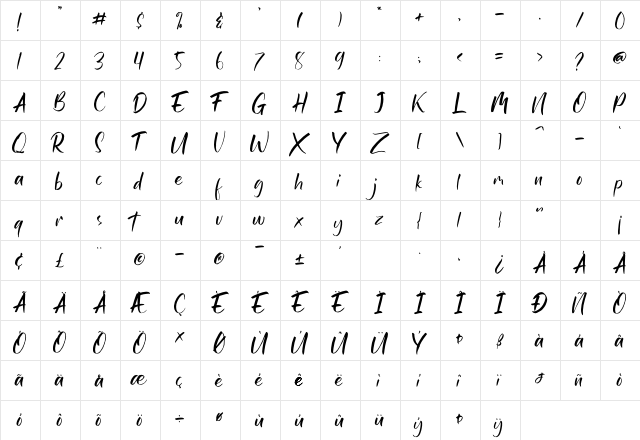
Rusty Frozee Regular
Design Context for Rusty Frozee Typeface
Rusty Frozee is a composed and adaptable typeface that performs quietly and consistently across a wide range of design contexts.